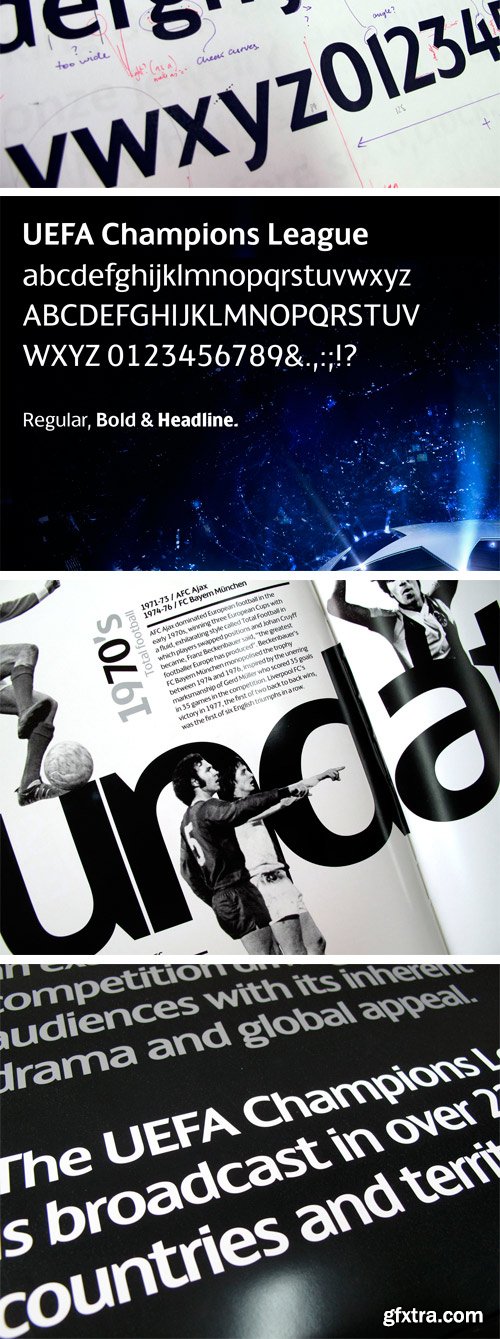
FS Champions - Custom Typeface of UEFA Champions League
UEFA and design agency Radiant Studios asked us to begin exploring the potential for a bespoke font family for the UEFA Champions League brand identity. The tournament’s logotype uses a traditional serif font style with a bold and elegant football that is suggested by a pattern of stars. These elements serve their purpose as a symbol of the world’s best club football competition. The challenge for us was to maintain and carry over this prestige into a typographic personality whilst subtly modernising and injecting energy into the brand.
The new typeface was intended to be used throughout all Champions League brand communications from publishing, exhibitions, conferences and onscreen tournament and match infographics. We needed to create a bespoke type design that complemented the existing identity so we began by playing with several possibilities and questioning sans serif, serif and brushstroke styles, drawing type into context and over the top of other brand imagery. We kept returning to the football logo and explored the angles on the points of the stars to see if we could incorporate them into the letterforms. A lot of time was spent designing the lowercase ‘g’. We wanted something quirky and dynamic. It was an important character because it’s in the word ‘League’ and therefore would be key for brand recognition when the ‘g’ was used in other words. The final result is a quirky and decidedly European sans serif typeface, crisp and sometimes spiky. A distinctive look for the numerals was also of prime importance, and a Cyrillic character set complements the standard Latin alphabet in all fonts. Champions Regular, Bold, Extra Bold and Headline fonts are exclusive to UEFA and will further strengthen the brand across all communications.